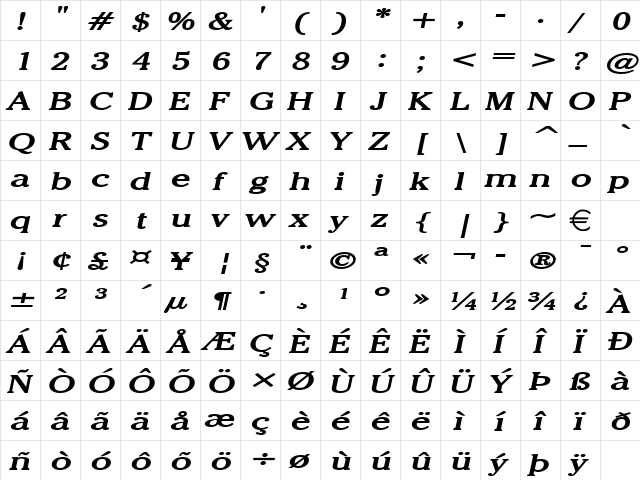
ChelseyExtended BoldItalic
Design Context for ChelseyExtended Typeface
ChelseyExtended takes a measured approach to typography — its balanced proportions and neutral character make it a reliable workhorse for both digital and print work. The dynamic lean of this cut emphasises speed and emphasis in any layout. The heavy weight commands attention and anchors typographic hierarchies.
Pro Tip: Use ChelseyExtended for emphasis, pull quotes, and subheadings where its slanted energy can add rhythm to the layout.